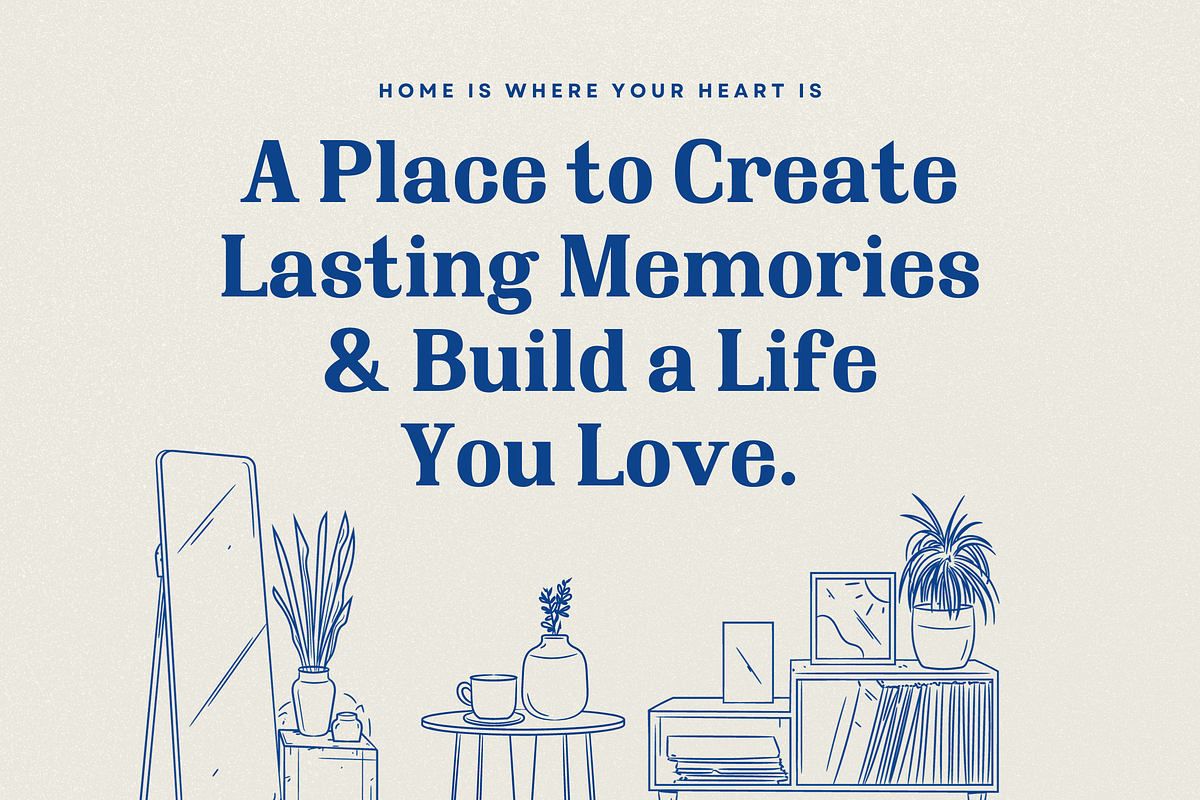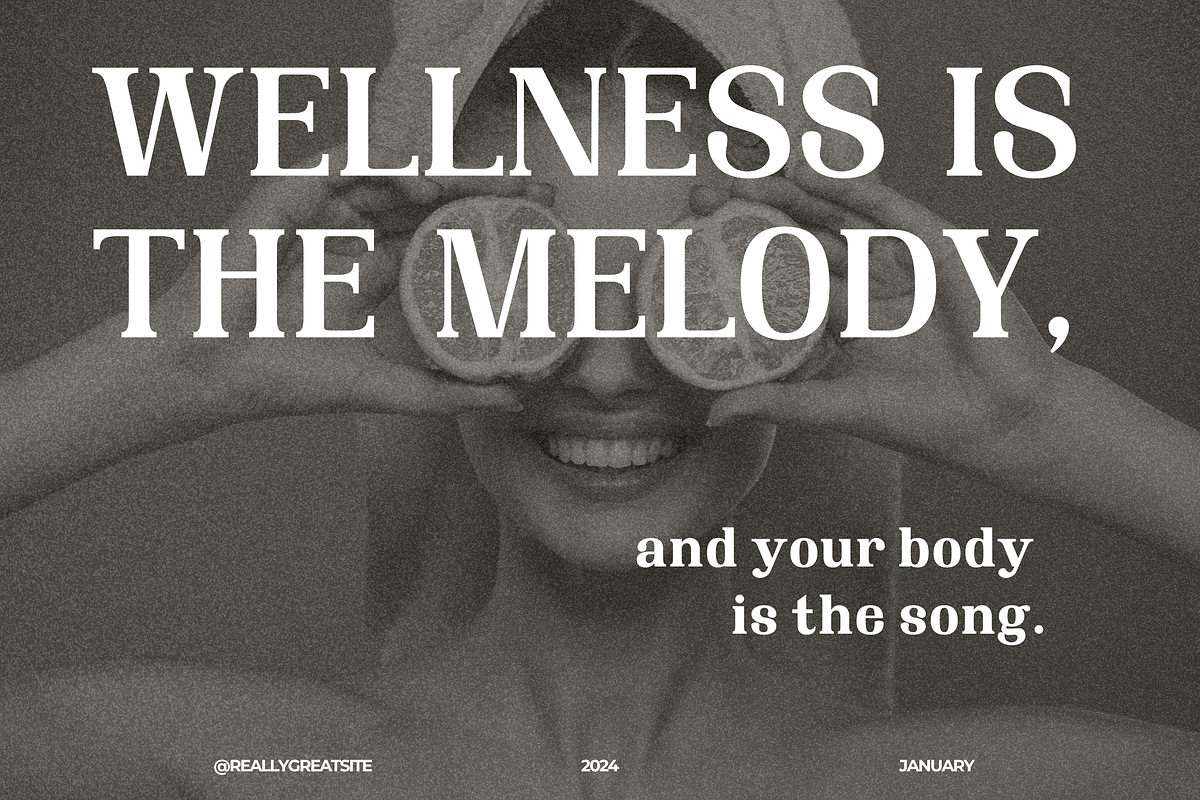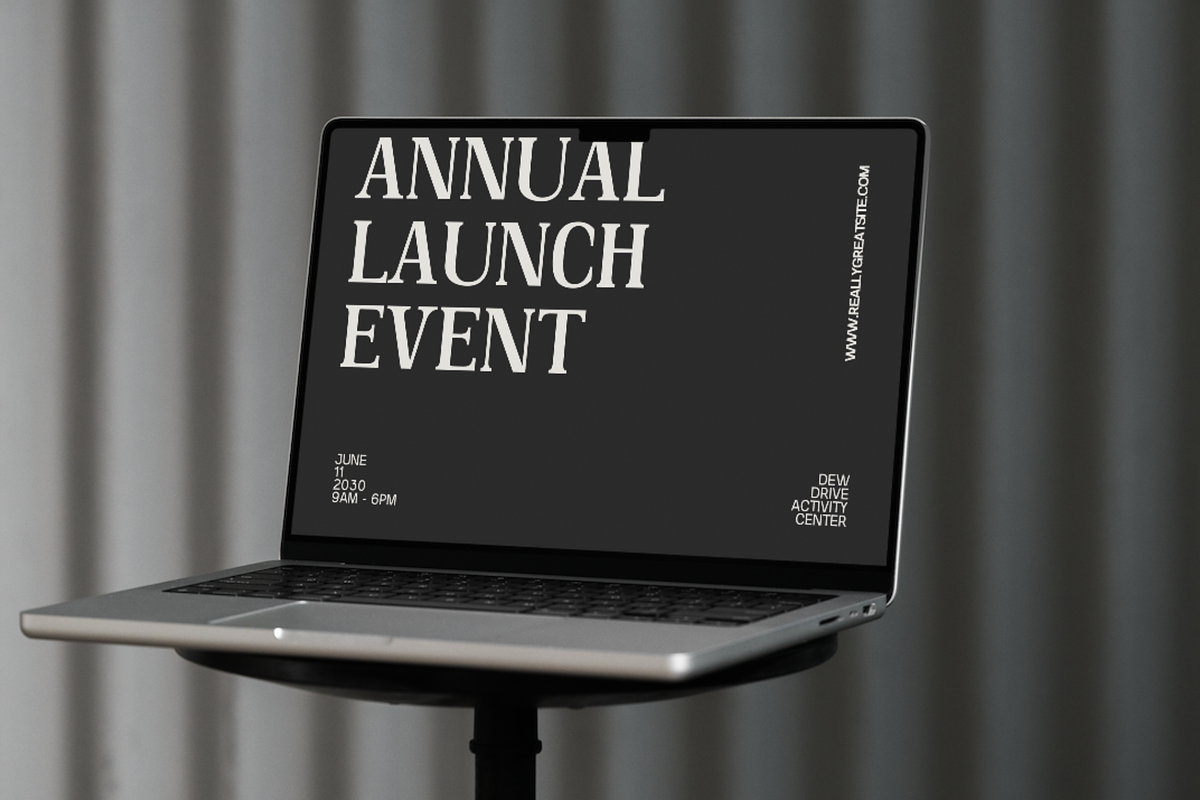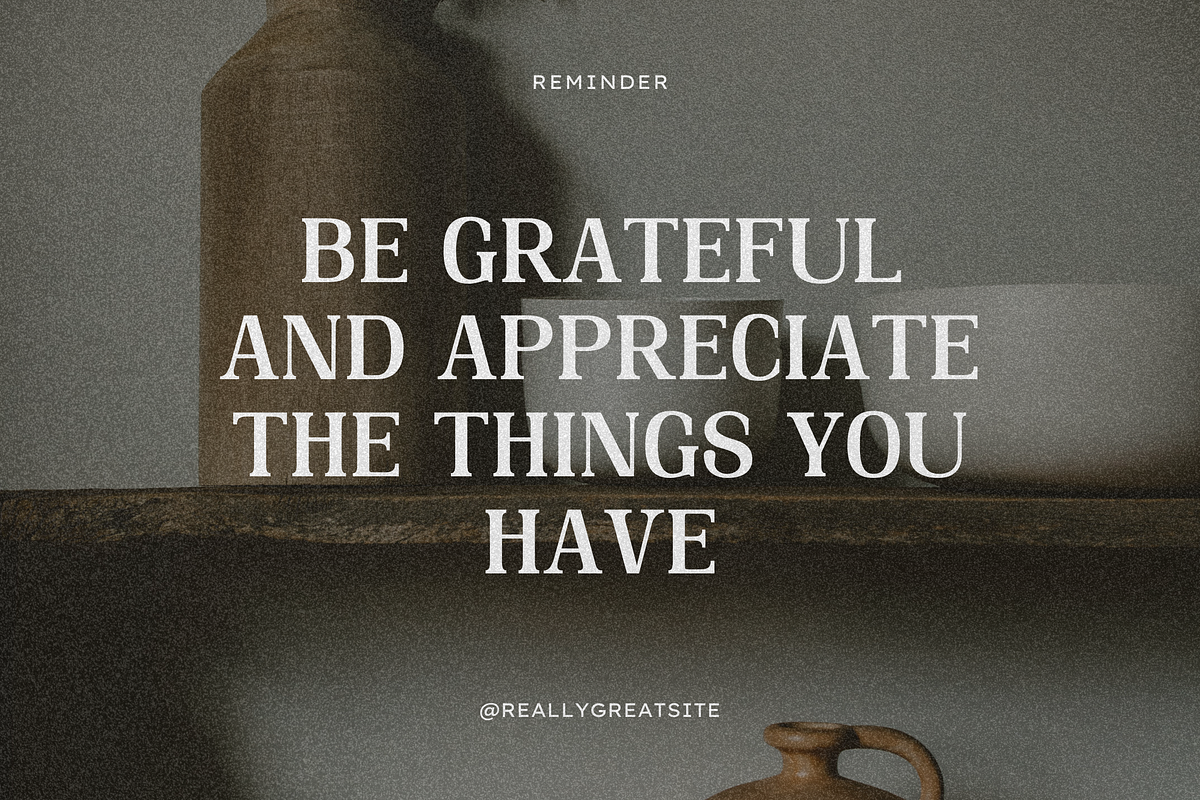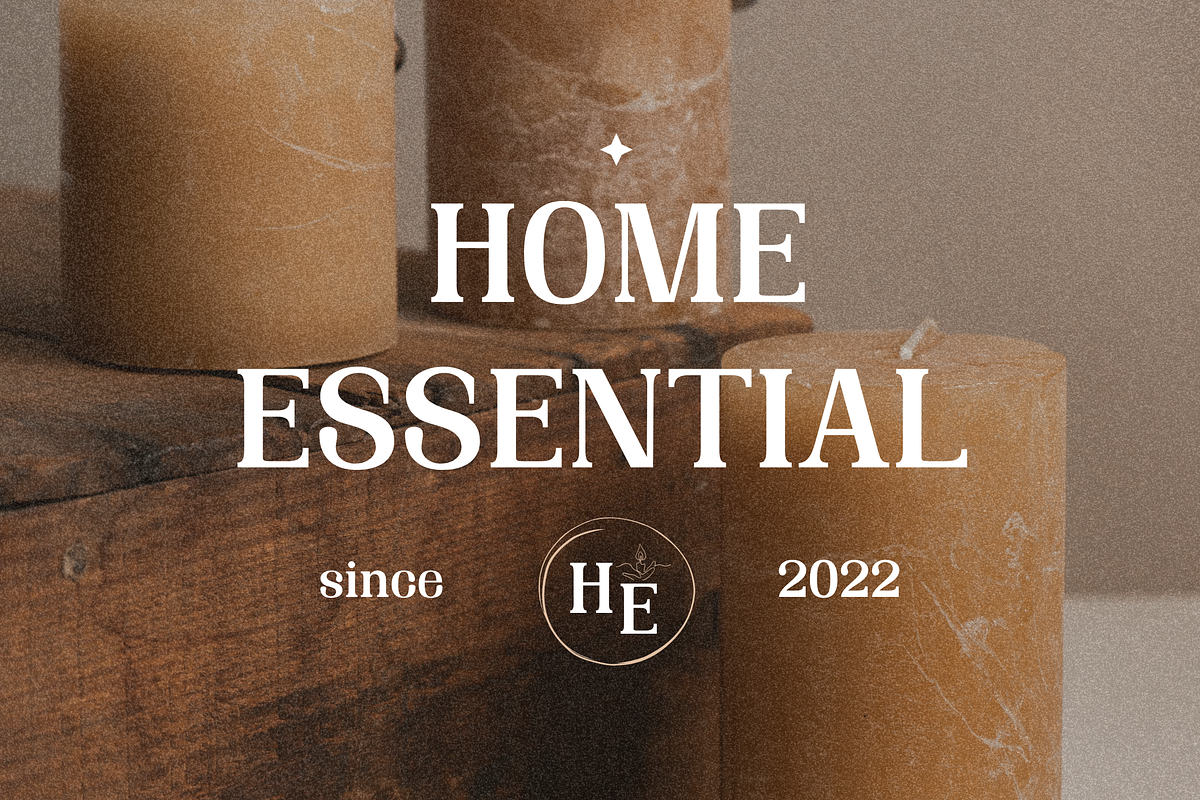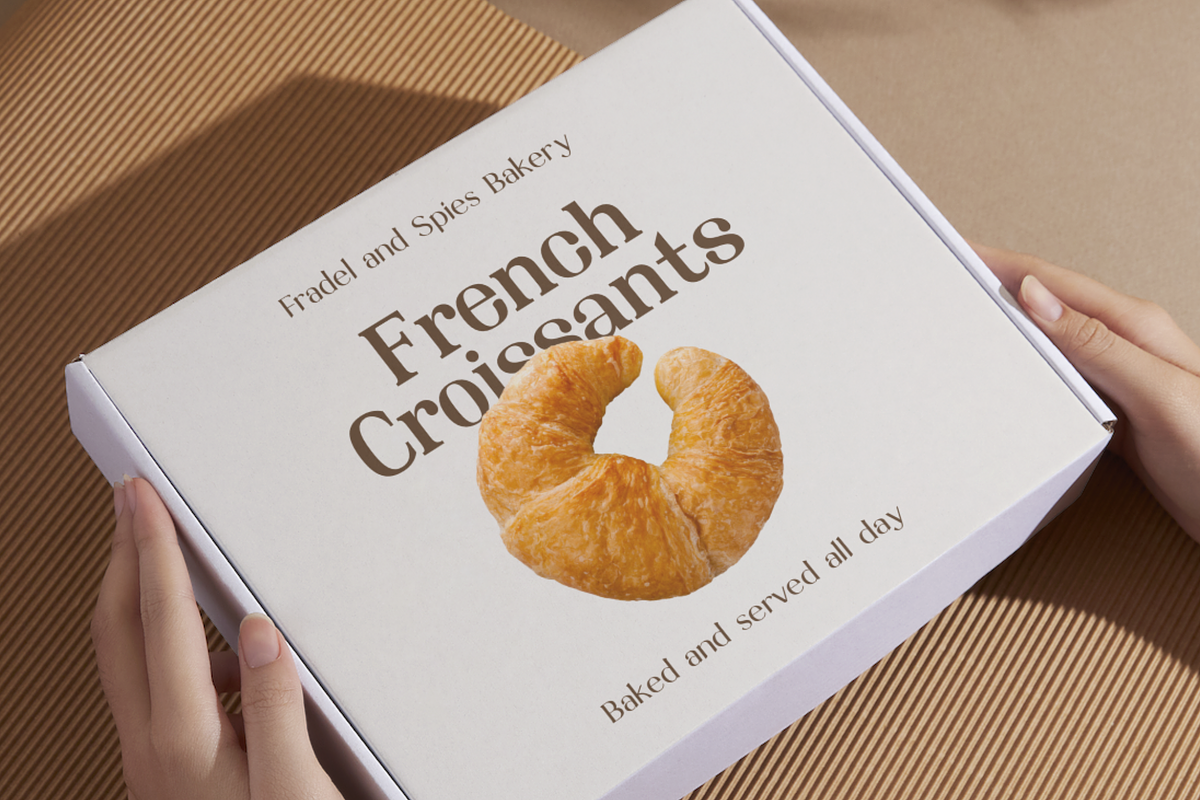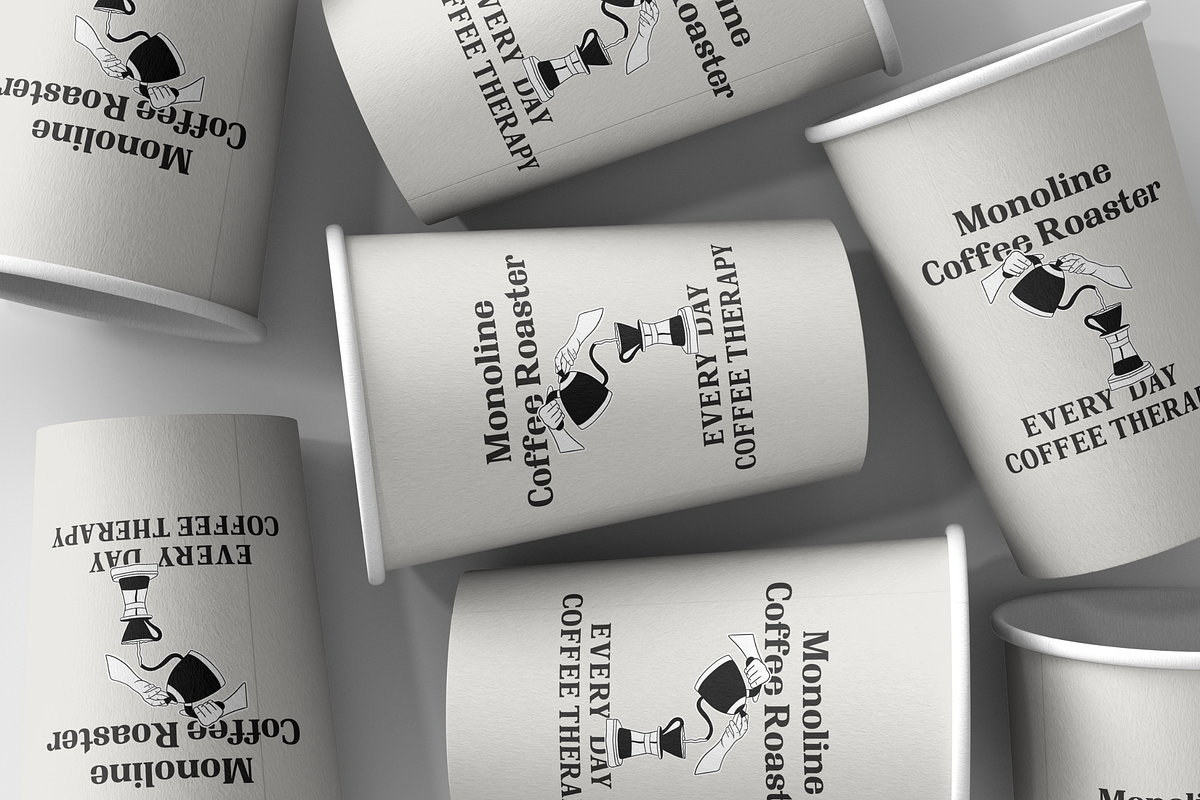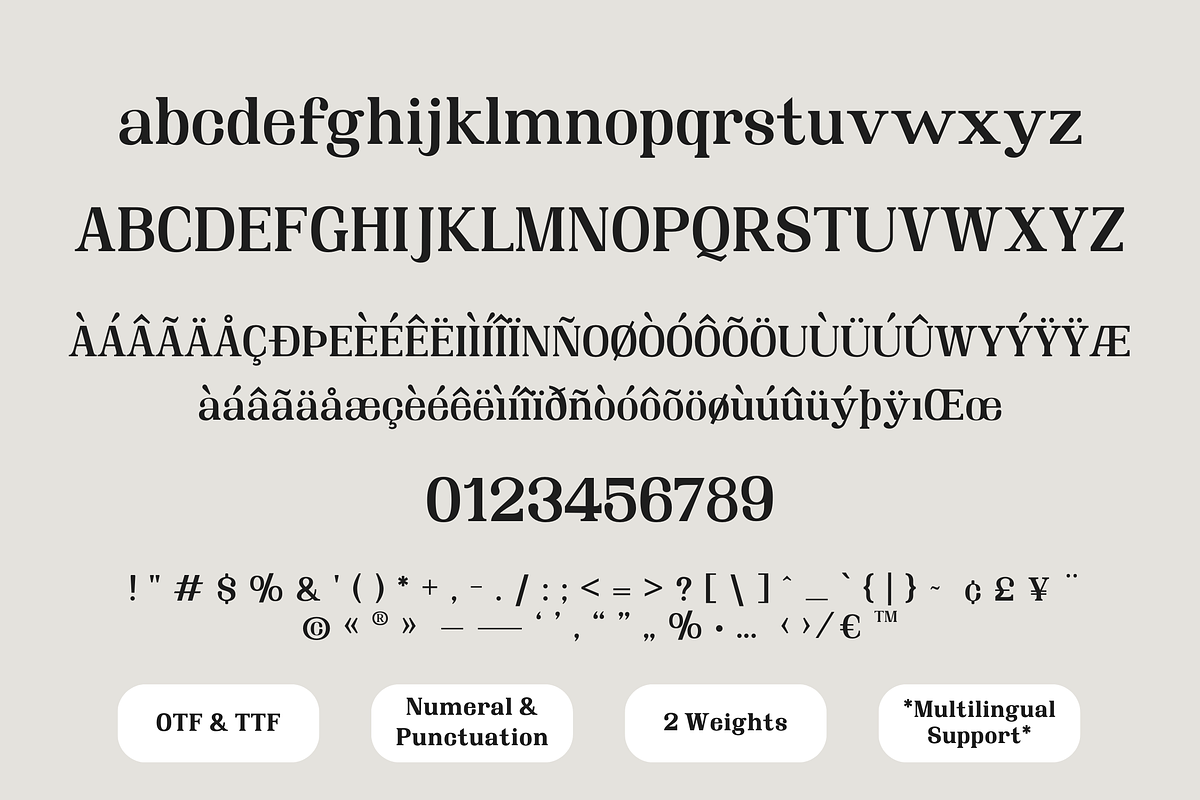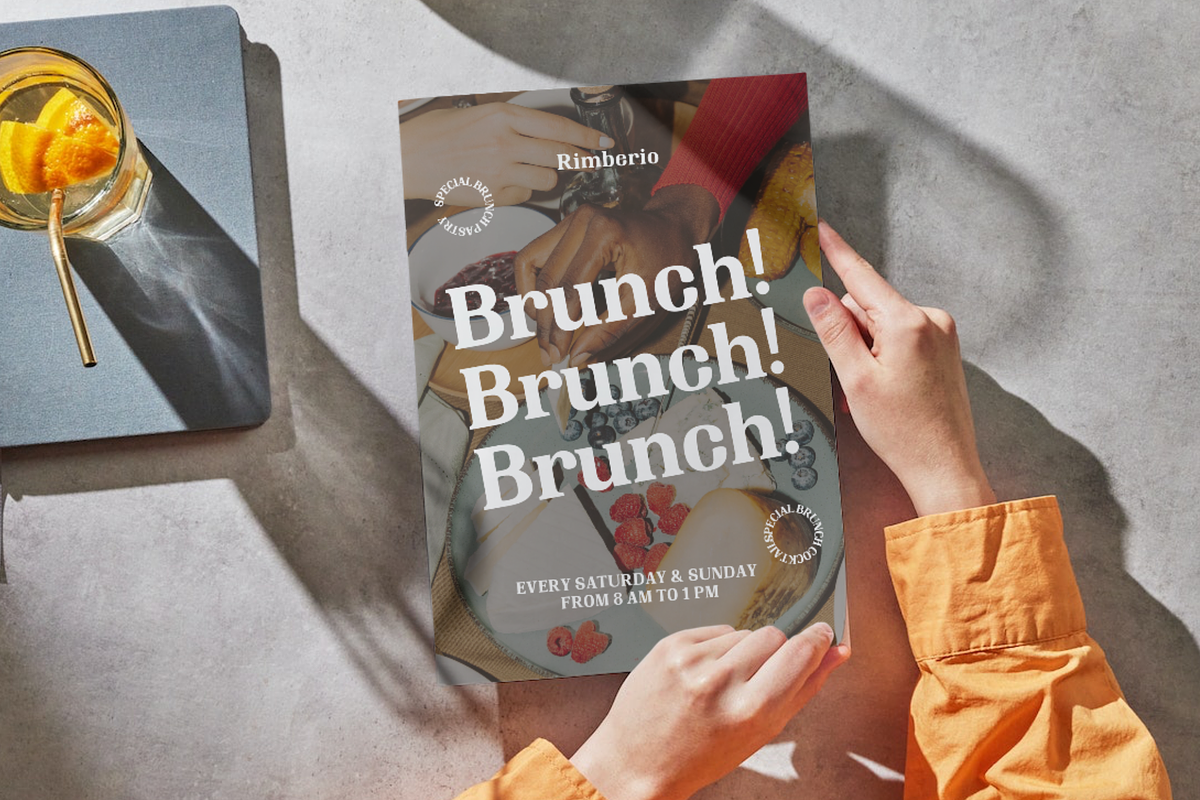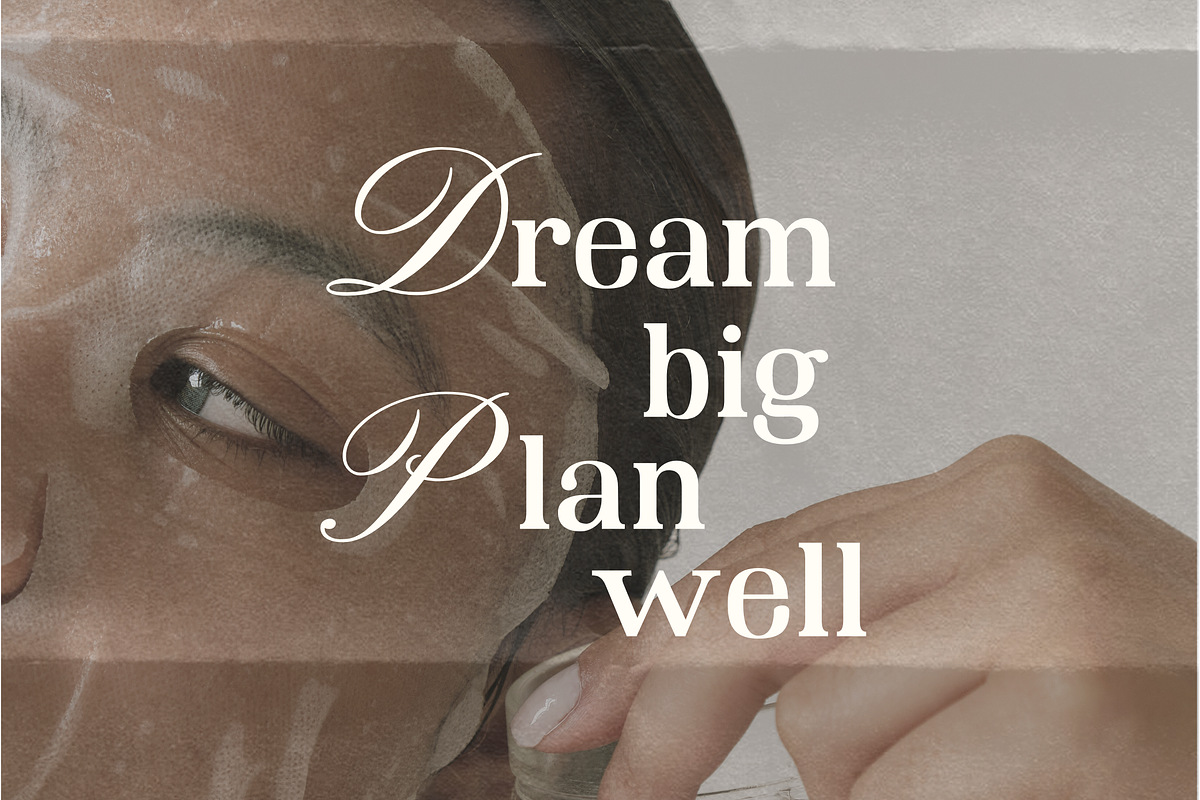
Hakira | Vintage Elegant Serif Font
Say Hi to "Hakira" font, a 2-weight Vintage Elegant Serif Font that is perfect uses as Timeless Font, Minimal luxury Font, Modern Branding font, Invitation Font, Logotype font, Packaging design font, Aesthetic Branding, Modern Logo or any type-oriented projects!
Perfect blends for your quotations, banners, logos, product packaging, titles, headers, Business cards, menu lists, and invitation cards!